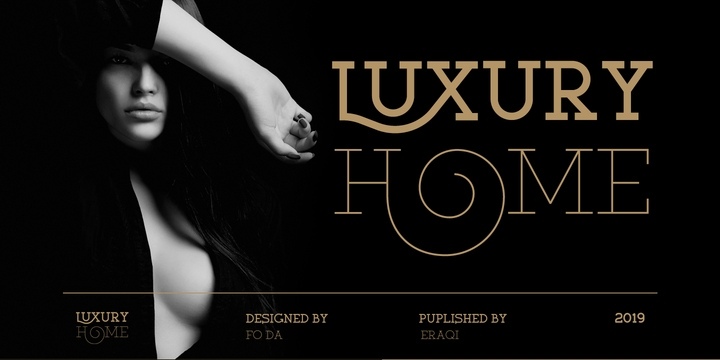
Luxury Home Font
Luxury Home Font is perfect for high-end real estate brochures, luxury hotel branding, premium interior design portfolios, upscale restaurant menus, elegant wedding invitations, sophisticated business cards, luxury product packaging, high-fashion magazines, and exclusive event materials.
What makes Luxury Home Font exciting is its sophisticated elegance that exudes opulence and refinement in every letterform. The font captures the essence of luxury living with its graceful curves and premium aesthetic that instantly elevates any design project. Its meticulously crafted details reflect the attention to quality found in luxury homes, making it the perfect choice for brands that want to communicate exclusivity, sophistication, and premium value to their discerning clientele.
Luxury Home Font family includes elegant variations such as Regular, Light, Medium, and Bold weights, often accompanied by stylistic alternates and decorative elements. The family may feature ornamental capitals, ligatures, and special characters that enhance the luxurious feel, providing designers with multiple options to create sophisticated typographic hierarchies and stunning visual compositions.